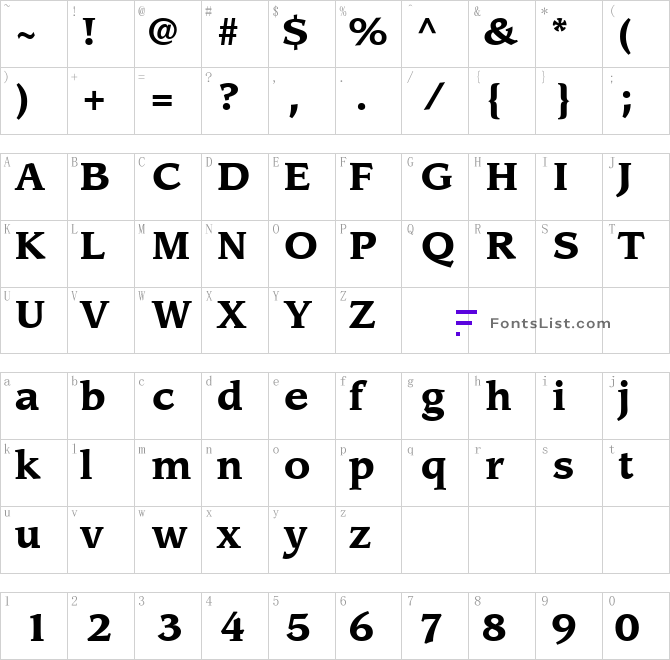
- Font Name:Advisor SSi
Advisor-SSi-Bold.ttf is a very beautiful artistic font, Advisor-SSi-Bold.ttf is widely used in the design and printing of various books and pictures,Advisor-SSi-Bold.ttf has a strong visual impact,Advisor-SSi-Bold.ttf is a commonly used font in newspapers, magazines and books, and is used in posters, e-commerce Poster design, store design, logo design, font design and other fields.Advisor-SSi-Bold.